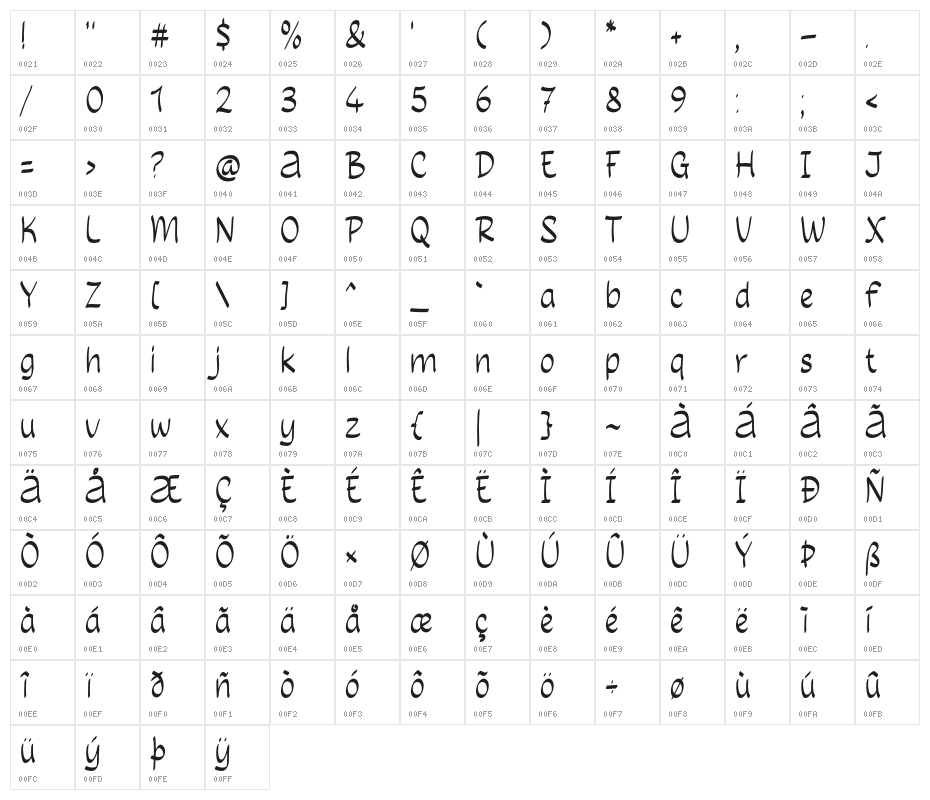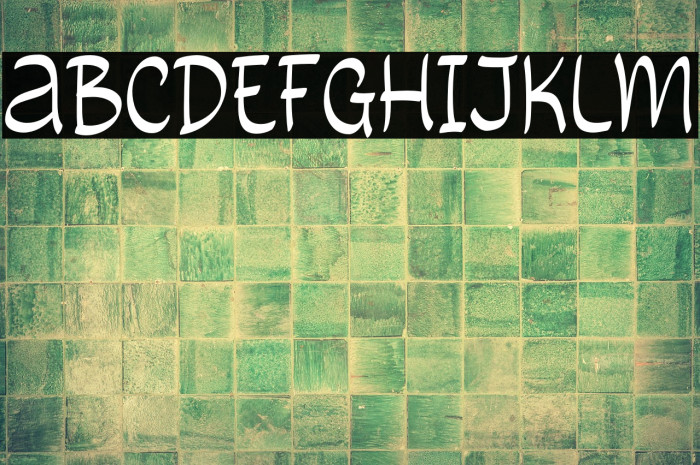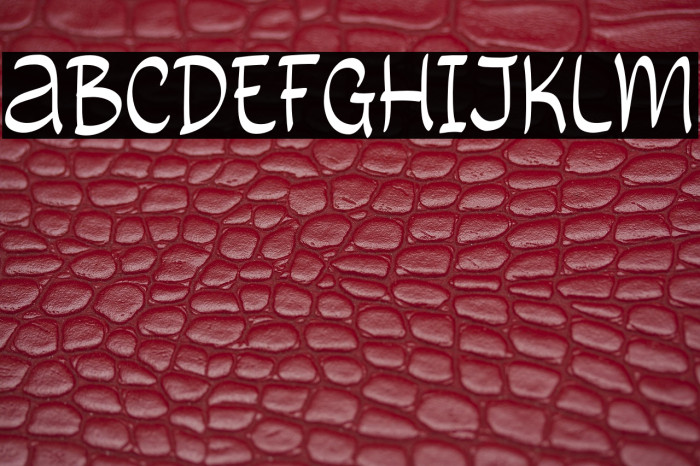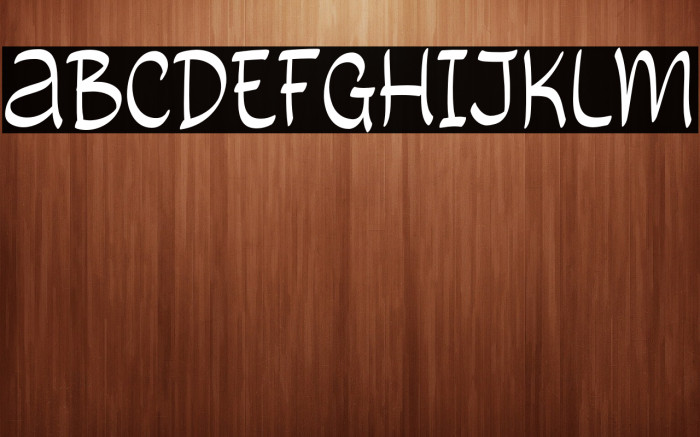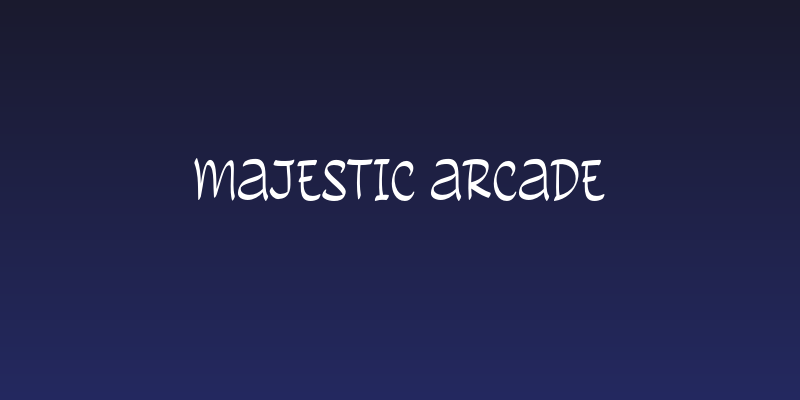
Majestic Arcade Font
Majestic Arcade Description
This font features a playful and dynamic style with a handwritten appearance. The characters are slightly slanted, giving a casual and informal feel. The strokes are smooth and consistent, with rounded edges that enhance its friendly and approachable look. The uppercase and lowercase letters maintain a harmonious balance, while the numerals and special characters integrate seamlessly into the overall design. This font's unique charm makes it suitable for creative and artistic projects.
Overall StyleCasual, Playful
Use CaseLogos, Invitations, Posters
Proposed ProjectsIdeal for greeting cards, children's books, playful branding, and creative posters.